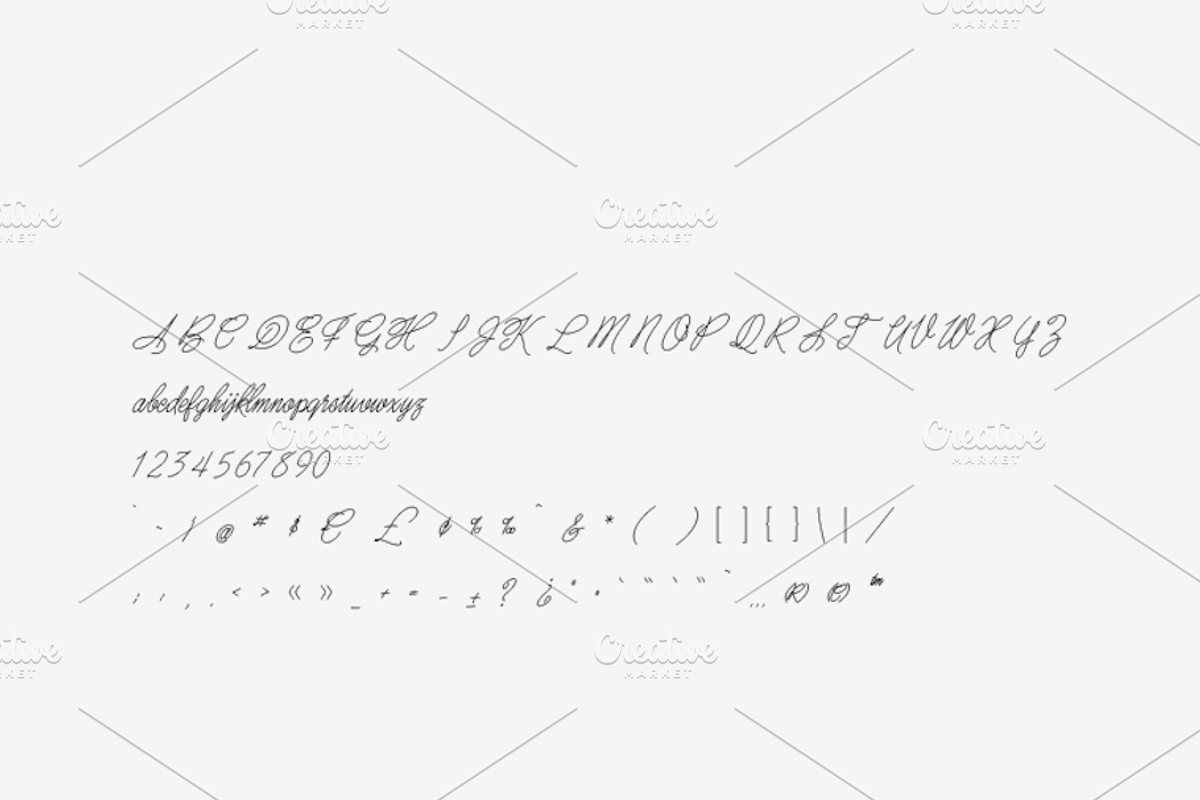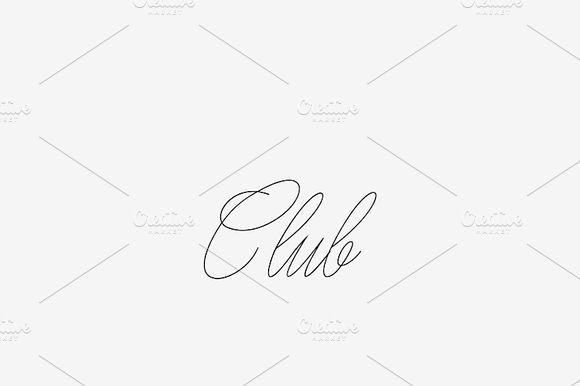
Club - Laser, Craft Cutter Font
Club is a new modern & fresh script that is a bit romantic - ideal for making invitations, quotes, fine signs, and ornate engraving.
12x Faster than Raster Weld/join letters for smooth flow
A New Level of Performance & Accuracy
From felt tip pen to laser etch, TrueStroke Single-Stroke Fonts unique design dramatically increase performance, accuracy and draw/cutting/burn times by 12 times faster than standard font images while forming a much smoother letter.
Engraving and etching type up to now has been slow, and many times the result is less than perfect. There are primarily two methods of operation, Raster, and Outline. Raster (raster or bitmap images are a dot matrix data structure that represents a grid of pixels) takes a great deal of time, and small letters can become muddled, the other option is to Outline the type - this also takes time, and many letters can become over-cut or over-burned.
The answer seemed to be simple. Single-line fonts, (also referred to as, engraving fonts or plotter fonts) are specifically designed for use when performing engraving or line drawing operations. The purpose of a single-line font is to reduce the actual font displayed to a single line. Though it may appear as if the font is a single line, the machine software may read it differently.
The issue remains that most operating systems that employ the standard font formats, TrueType & OpenType, (more commonly used in laser printers or other high-resolution devices), are limited to only reading fonts with closed paths. These closed paths only perform correctly on letters that are naturally closed like ‘0’, ‘O’ & ‘D.’
Single-line fonts WITHOUT closed paths may not display correctly, add stokes to create closed paths or even expand without crucial lines. In any instance, single-line fonts are limited and unreliable.
TrueStroke Single-Stroke Fonts display and perform just like any other TTF or OTF font, though require conversion/expansion to outline/wireframe creating the single-stroke vector image before sending to your machine.